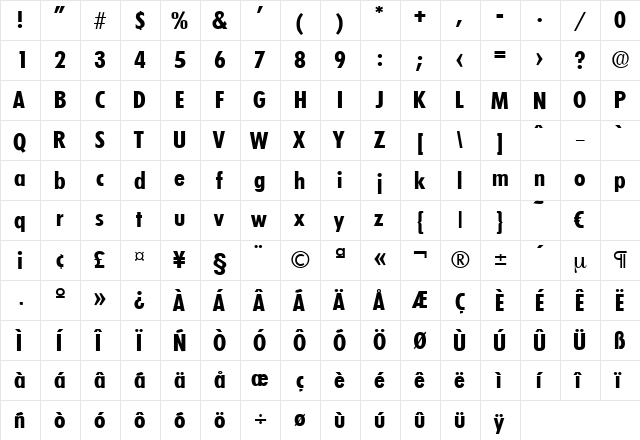
Limerick-DemiBoldCond Regular Font Preview
Limerick-DemiBoldCond Regular
Design Context for Limerick-DemiBoldCond Typeface
Limerick-DemiBoldCond offers clean, dependable letterforms without strong stylistic allegiance, making it a practical choice for designers who need flexibility. Its bold stroke weight gives it real presence on the page. Its narrow stance lets it pack a punch even in space-constrained designs.